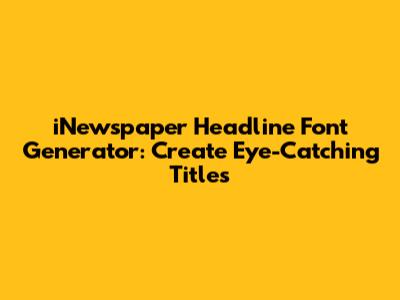
- Find a Reliable Generator: Start by searching online for a reputable iNewspaper headline font generator. There are many free and paid options available, so take some time to explore different tools and read reviews to find one that suits your needs. Look for generators that offer a wide range of font options, customization features, and a user-friendly interface. Some popular choices include Font Meme, FlamingText, and Cool Text. Once you've found a generator you like, bookmark it for future use.
- Enter Your Headline Text: Once you have chosen your generator, the next step is to enter the headline text you want to transform. Be sure to proofread your headline carefully to ensure there are no typos or grammatical errors. Remember, the headline is the first thing readers will see, so it's important to make a good impression. Consider experimenting with different versions of your headline to see which one works best with the chosen font. Keep in mind the character limit, if any, of the generator.
- Choose a Font: This is where the fun begins! Most iNewspaper headline font generators offer a variety of fonts that mimic the classic newspaper style. Browse through the available options and select a font that aligns with the tone and message of your content. Some popular choices include Times New Roman, Georgia, and other serif fonts that evoke a sense of tradition and authority. Don't be afraid to experiment with different fonts to see what looks best. Many generators also allow you to preview the font in different sizes and styles, so you can get a better sense of how it will look in your final headline.
- Customize Your Headline: After selecting a font, you can customize your headline further by adjusting the size, color, and other stylistic elements. Most generators offer a range of customization options, allowing you to fine-tune the appearance of your headline to match your specific needs. For example, you can change the font size to make your headline more prominent, or you can adjust the color to make it stand out against the background. Some generators also allow you to add effects like shadows, outlines, and gradients to further enhance the visual appeal of your headline. Experiment with these options to create a headline that is both eye-catching and informative.
- Keep It Concise: In the fast-paced world of online content, brevity is key. Aim for headlines that are short, punchy, and to the point. A concise headline is easier to read and understand, increasing the likelihood that readers will click through to your article. Try to limit your headlines to around 6-10 words, focusing on the most important information. Use strong verbs and avoid unnecessary adjectives or adverbs. A well-crafted, concise headline can make all the difference in capturing your audience's attention.
- Use Strong Keywords: Incorporating relevant keywords into your headlines is essential for SEO and helps readers quickly understand the topic of your article. Research the keywords that your target audience is searching for and include them naturally in your headlines. This will not only improve your search engine rankings but also make your content more discoverable to the right people. Use keyword research tools to identify high-volume, low-competition keywords that are relevant to your niche. Remember to prioritize readability and avoid keyword stuffing, which can negatively impact your SEO.
- Evoke Emotion: Headlines that evoke emotion are more likely to resonate with readers and drive engagement. Use words and phrases that create a sense of curiosity, excitement, or urgency. For example, instead of saying
Creating captivating headlines is essential in today's fast-paced digital world, especially when aiming for that classic newspaper aesthetic. Using an iNewspaper headline font generator can significantly enhance your content, drawing readers in with its distinctive and authoritative style. These tools allow you to craft titles that grab attention and convey information effectively, mimicking the iconic look of traditional newspapers. In this article, we’ll explore the importance of headline fonts, how to use an iNewspaper headline font generator, and tips for creating headlines that stand out.
Understanding the Importance of Headline Fonts
Headline fonts play a crucial role in the overall presentation and impact of your content. The right font can instantly convey a sense of credibility, urgency, or importance, which is why newspapers have long relied on specific typefaces to communicate with their readers. When you're diving into the world of iNewspaper headline font generators, you'll quickly realize that not all fonts are created equal. Some fonts evoke a sense of history and tradition, while others lean towards a more modern and dynamic feel. Think about the New York Times, for example; their choice of font isn't just arbitrary—it's a deliberate decision that reinforces their brand and the seriousness of their reporting. By choosing a font that resonates with your target audience and the message you're trying to convey, you can significantly enhance the effectiveness of your headlines.
The power of a well-chosen headline font extends beyond mere aesthetics. It directly influences readability and comprehension. A clear, legible font ensures that readers can quickly grasp the main point of your headline, even at a glance. This is particularly important in today's fast-paced digital environment, where attention spans are shorter than ever. Imagine scrolling through a news feed filled with countless articles; a headline with a striking and readable font is far more likely to catch your eye and entice you to click. Moreover, the right font can also create a sense of visual hierarchy, guiding the reader's eye and highlighting the most important information. Factors like font size, weight, and spacing all contribute to the overall impact of your headline, making it a powerful tool for attracting and engaging your audience. By paying close attention to these details and leveraging the capabilities of an iNewspaper headline font generator, you can craft headlines that not only look great but also drive meaningful results.